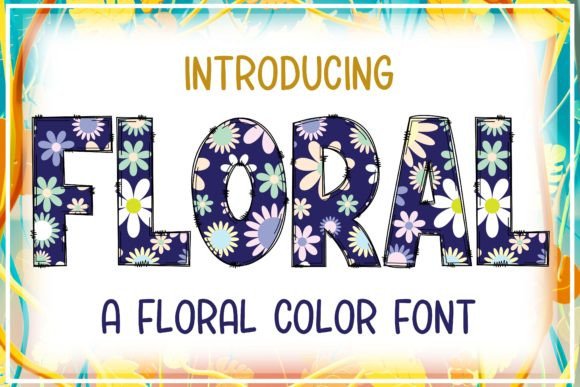
Looking for a colorful and eye-catching font that can bring your designs to life? Look no further than Floral Font, the latest addition to the MDF family! This full-color font features chunky lettering in pastels with a few flowers thrown in for good measure. Whether you're working on a website, a poster, or a product label, Floral Font is sure to stand out and grab attention.
So why choose Floral Font over other fonts on the market? For one thing, it's incredibly easy to use. Simply install the font on your computer, and you're ready to go. But more than that, Floral Font is a font with personality. It's perfect for anyone who wants to add a touch of whimsy to their designs or who simply wants to stand out in a sea of boring, black-and-white typography.
In short, if you're looking for a font that's as colorful and bold as you are, Floral Font is the perfect choice. Download it today and start creating designs that are truly one-of-a-kind.